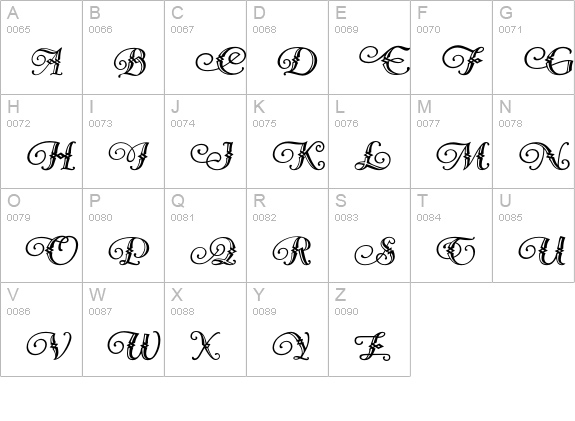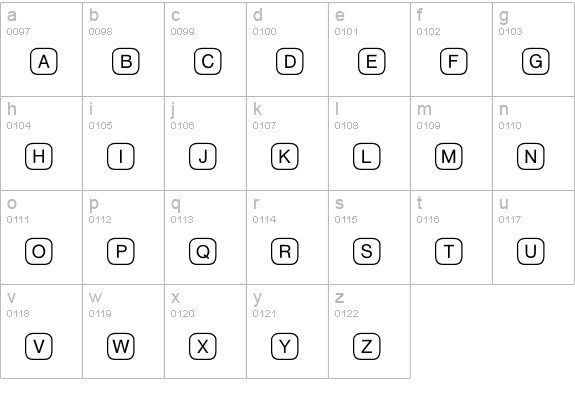
SpecialAlphabetsP08 Font Details
Introducing SpecialAlphabetsP08, a stunning and versatile font that will take your designs to new heights. This font is not only visually captivating but also offers a wide range of creative possibilities. With its unique and intricate letterforms, SpecialAlphabetsP08 will add a touch of elegance and sophistication to any project. What sets SpecialAlphabetsP08 apart from other fonts is its ability to effortlessly blend traditional and modern aesthetics. The combination of classic letter shapes with contemporary design elements creates a harmonious balance that is both timeless and fresh. Whether you are designing a logo, a poster, or a website, SpecialAlphabetsP08 will make your work stand out from the crowd. One of the best features of SpecialAlphabetsP08 is that it is free! Yes, you read that right. This font is freely available to download at FontsMarket.com. You no longer have to worry about breaking the bank to access high-quality fonts. SpecialAlphabetsP08 is here to provide you with the perfect typographic solution without any cost. But don't let its price tag fool you. SpecialAlphabetsP08 is a font that delivers in terms of both style and functionality. Its clean and legible letterforms ensure excellent readability in any size or context. Whether you are using it for headlines, body text, or even in graphic elements, SpecialAlphabetsP08 will make sure your message gets across loud and clear. SpecialAlphabetsP08 also offers a wide range of characters and language support, making it suitable for international projects. From accented letters to special symbols, this font has got you covered. Its extensive character set ensures that you can express yourself in any language or script. So why wait? Download SpecialAlphabetsP08 today and unleash your creativity like never before. Whether you are a designer, a marketer, or simply someone who appreciates beautiful typography, this font is a must-have in your collection. Get ready to transform your designs and make a lasting impression with the stunning SpecialAlphabetsP08 font, freely available at FontsMarket.com.